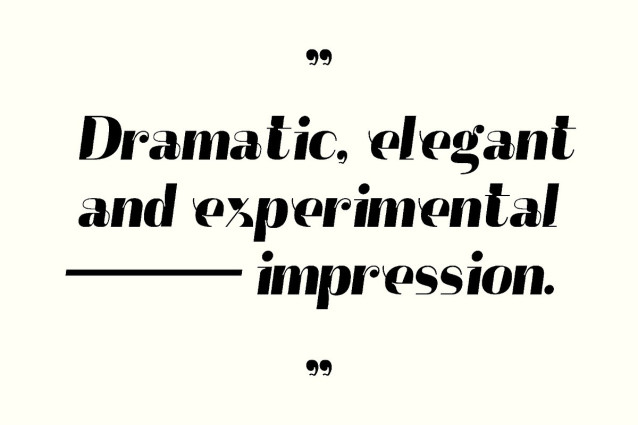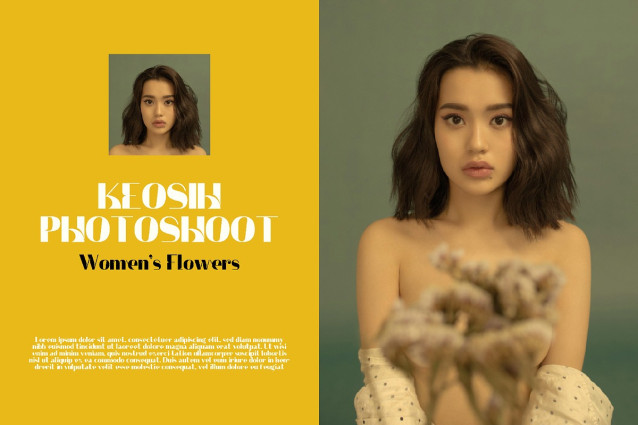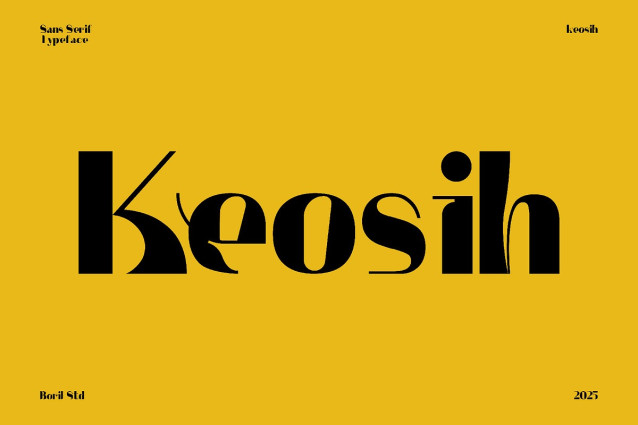
Keosih Font
Keosih Font is a sans-serif display font with the hallmarks of modern art deco style. Its defining feature is the extreme bold-thin contrast between each letter, creating a dramatic, elegant and experimental feel.